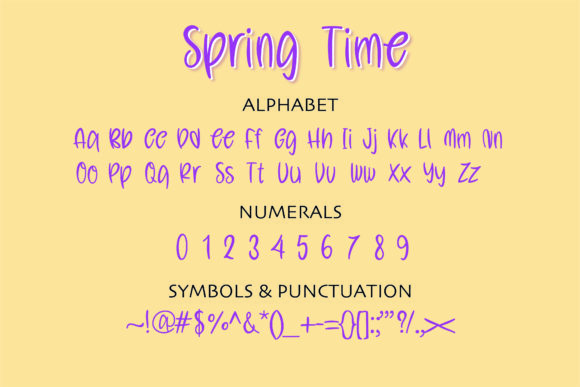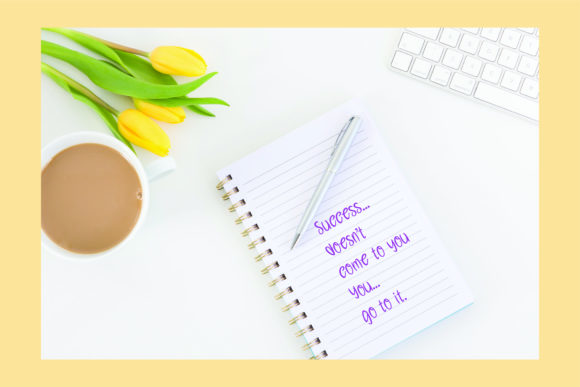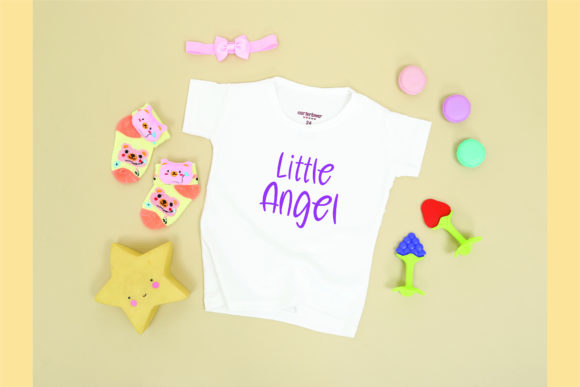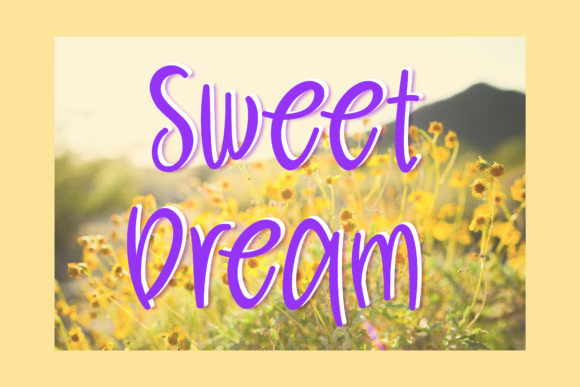
About Spring Time Font
Spring Time is a whimsical script font with a relaxed theme, featuring a lovely style. No matter the topic, this font will be an incredible asset to your fonts’ library, as it has the potential to elevate any creation.